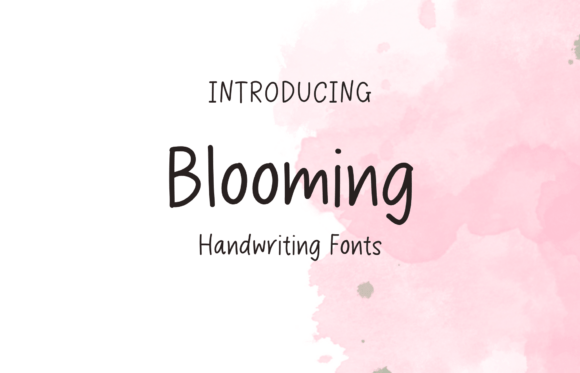
The Joy of Blooming Font
Remember the excitement of creating a handmade card for a loved one? The hours spent designing, cutting, and pasting, just to get it right? For many of us, it’s a moment we cherish, a feeling that sparks our creativity and sets our imagination ablaze. That same joy is what drives designers to seek out unique and expressive fonts like Blooming Font.
Blooming Font is a sweet and friendly handwritten display font, designed to add a touch of whimsy and fun to any design project. Whether you’re creating a wedding invitation, a comic book, or a love shirt, Blooming Font is the perfect addition to bring your vision to life. Its versatility and charm make it a valuable tool for designers, allowing them to express their creativity and connect with their audience on a deeper level.
Blooming Font Key Features
- Font Family: Blooming Font comes in a single family with 5 different styles (Regular, Italic, Bold, Bold Italic, Outline) to cater to various design needs.
- Character Set: The font includes a wide range of characters, including Latin, Cyrillic, and Greek alphabets, as well as punctuation and symbols.
- Unique Characteristics: Blooming Font features a unique, hand-drawn design with intricate details and subtle texture, giving it a distinctive and elegant look.
Blooming Font Review
First off, I have to say that I was really excited to dive into the Blooming Font and see what it had to offer. Overall, I found it to be a solid, if not overly exciting, addition to any design project. Here are some things that I think work particularly well:
- ✨ The unique, hand-drawn feel of the font adds a touch of whimsy and personality to any design. It’s perfect for projects that need a little extra flair.
- ✨ The font is highly customizable, with a wide range of style and color options available. This makes it easy to tailor the font to fit your specific design needs.
- ✨ The font is highly legible, even at small font sizes, making it a great choice for projects that require clear communication.
However, I did encounter a few limitations that prevented me from giving the Blooming Font a glowing review:
- ⚠️ The font can feel a bit too playful and childish at times, which may not be suitable for all design projects.
- ⚠️ The font’s unique style can also make it feel a bit overpowered in certain contexts, requiring a delicate balance to use effectively.
Overall, I’d say that the Blooming Font is a solid choice for designers looking for a fun and customizable font option. While it may not be the best fit for every project, it’s definitely worth considering for designs that need a little extra personality.
Blooming Font is ideal for creating eye-catching headlines, titles, and quotes. It’s also perfect for adding a touch of elegance to wedding invitations, birthday cards, and other special occasion designs.